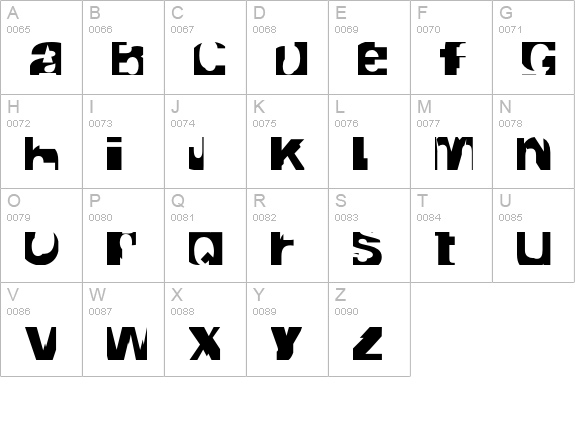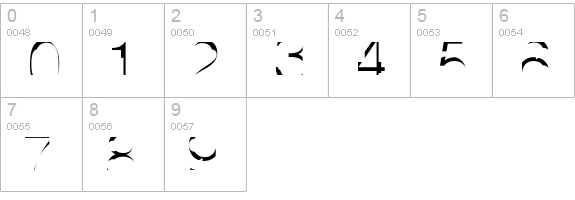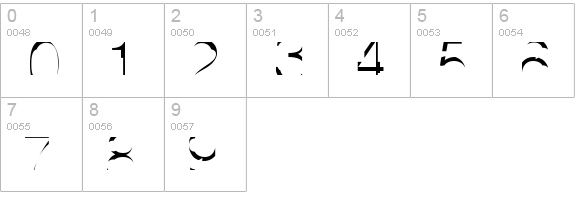
InternationalDisgrace-Maximus Font Details
Introducing InternationalDisgrace-Maximus font, a striking typeface that boldly embodies the essence of international disgrace. With its unique and edgy design, this font is perfect for creating attention-grabbing headlines, eye-catching posters, and memorable branding materials. InternationalDisgrace-Maximus font is a testament to the power of typography in expressing strong emotions and making a statement. Its sharp and angular letterforms exude a sense of urgency and intensity, reflecting the chaotic and tumultuous nature of our global society. This font is not only visually captivating but also versatile, allowing you to experiment with various styles and layouts. Whether you're aiming for a rebellious and disruptive look or a modern and cutting-edge aesthetic, InternationalDisgrace-Maximus font will surely deliver. What makes InternationalDisgrace-Maximus font even more remarkable is that it is available for free download at FontsMarket.com. Yes, you heard it right – this exceptional font can be yours without any cost. Simply visit FontsMarket.com, navigate to the font's page, and instantly access the download link. Now, you can unleash your creativity and incorporate this font into your projects without breaking the bank. So, why settle for ordinary when you can embrace the extraordinary with InternationalDisgrace-Maximus font? Download it today and let your designs speak volumes with its captivating and impactful presence.